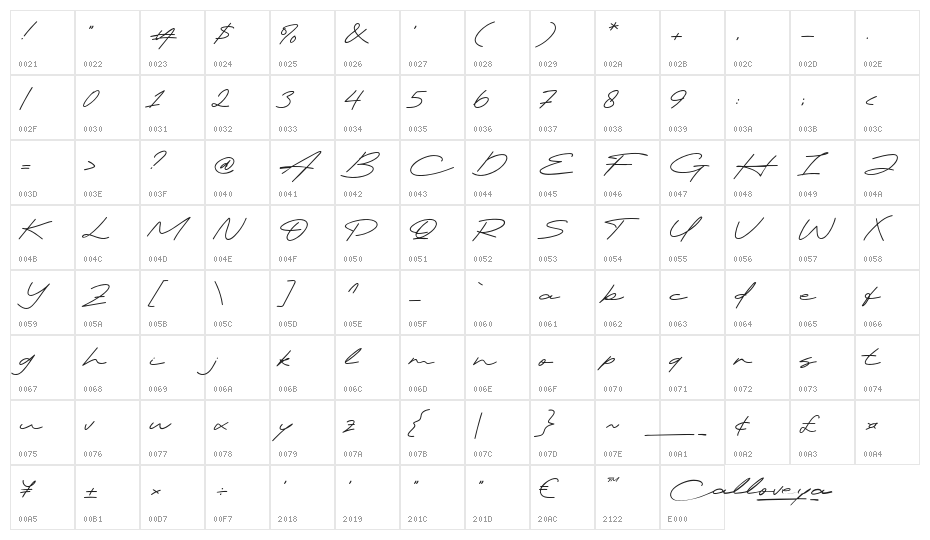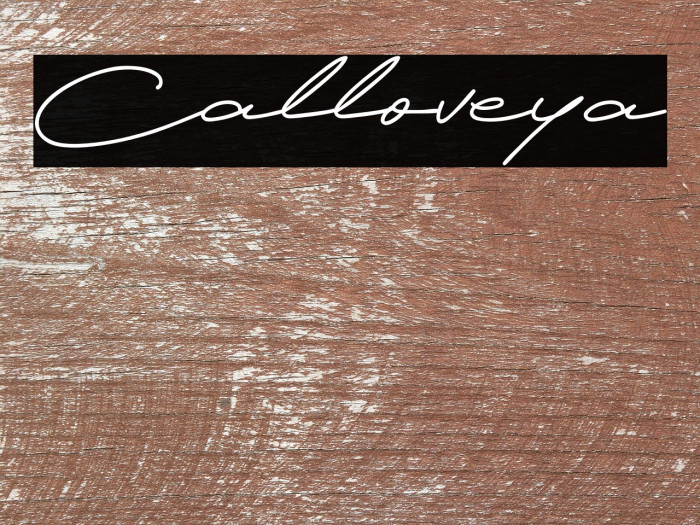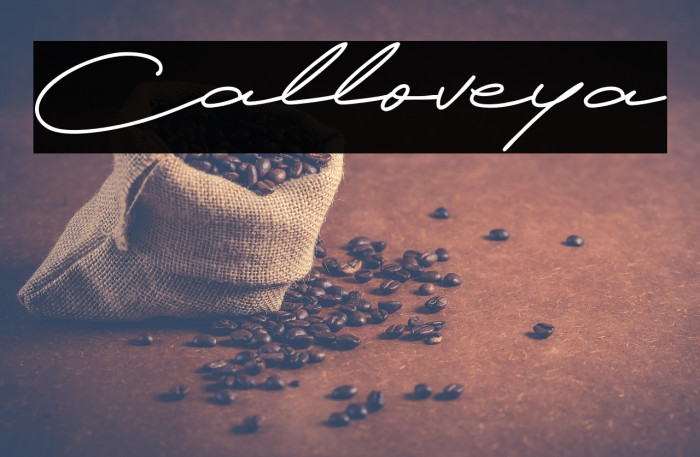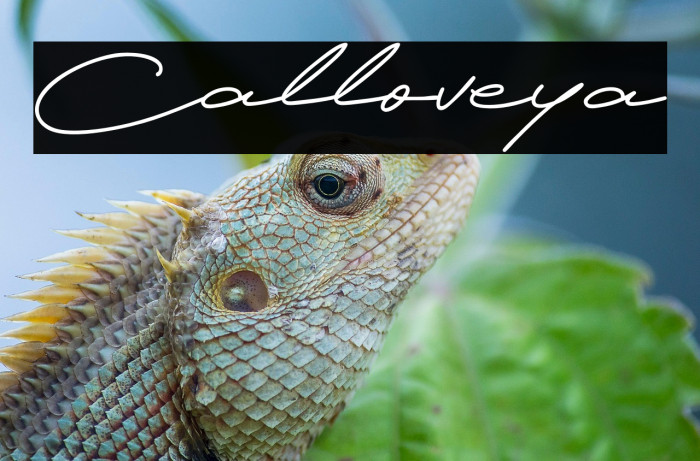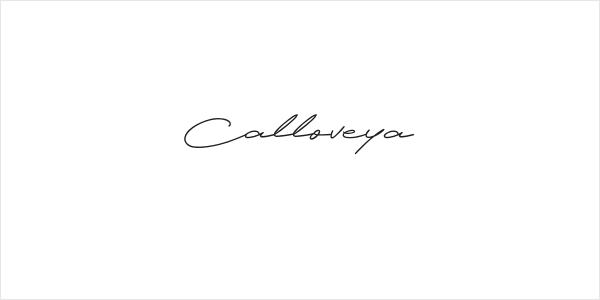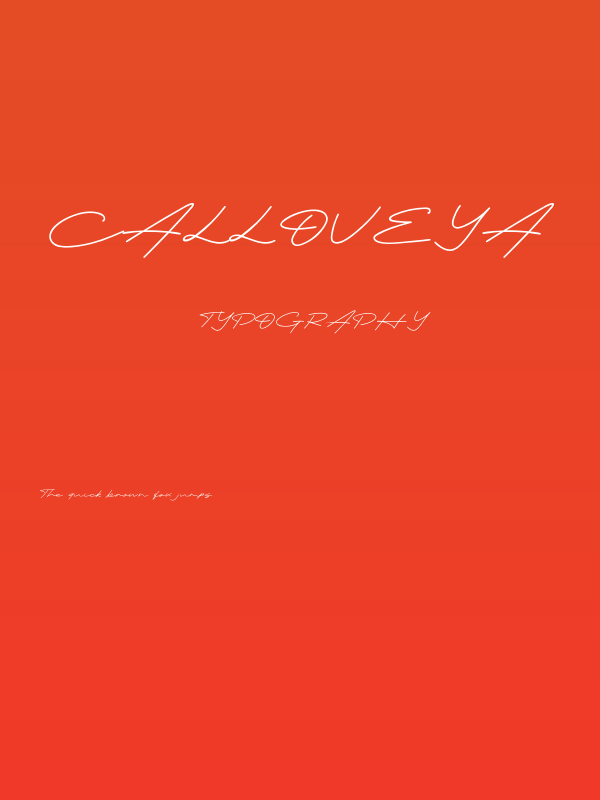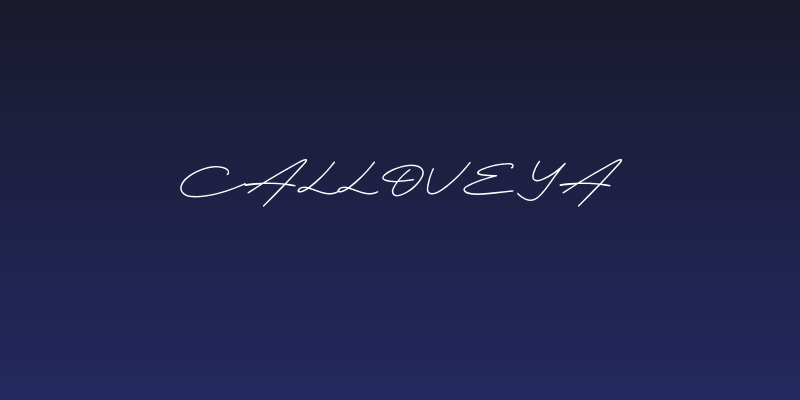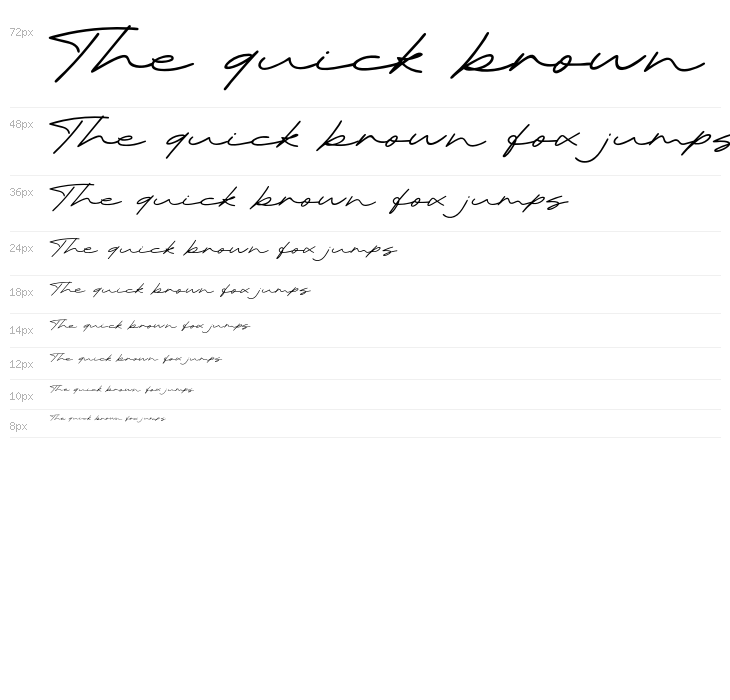
Calloveya Font
Calloveya Description
This elegant script font features a fluid, handwritten style with smooth, flowing lines that mimic natural handwriting. The characters are connected, giving it a cohesive and continuous appearance. The uppercase letters are slightly more embellished, while the lowercase letters maintain a consistent, graceful flow. The numerals and special characters are crafted to match the overall aesthetic, providing a harmonious look across all elements. This font exudes a sense of sophistication and personal touch, making it ideal for projects that require a personal or elegant feel.
| Overall Style | Elegant, Handwritten |
| Use Case | Invitations, Branding, Personal letters |
| Proposed Projects | Ideal for wedding invitations, personal letters, branding, and elegant stationery. |